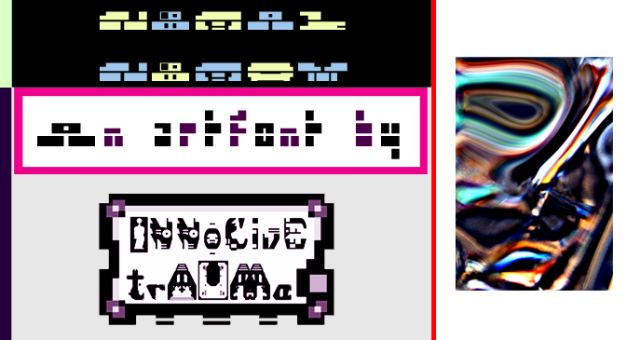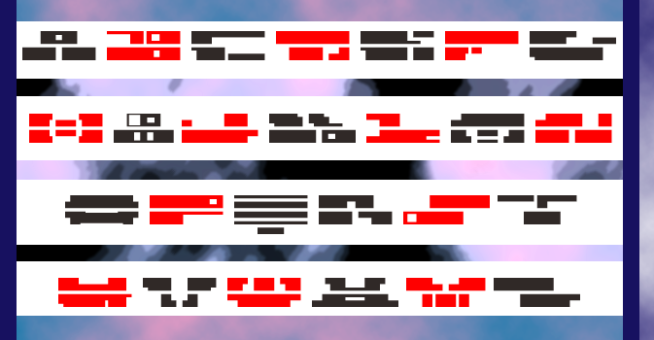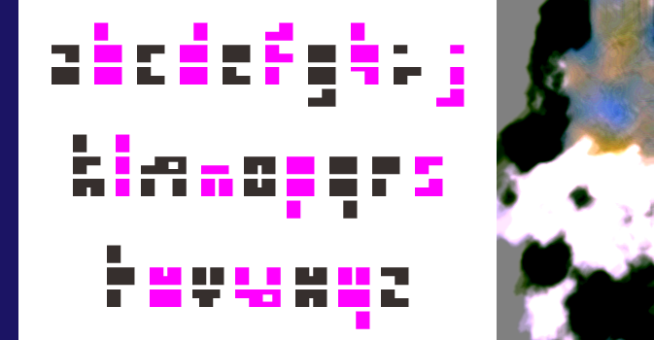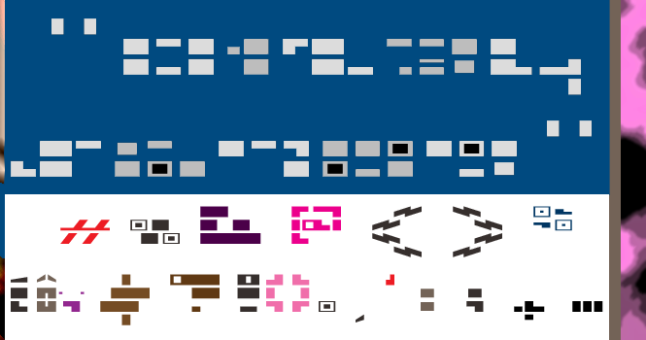
trAUMa 26 / Nimal Nimoy
"Nimal Nimoy", like all the "trAUMa" series, works at the frontier between Art & Type Design, Figuration & Abstraction, each font is a comprehensive world in which every glyph is a "living" entity. But put together they can produce your messages in the most accurate way.